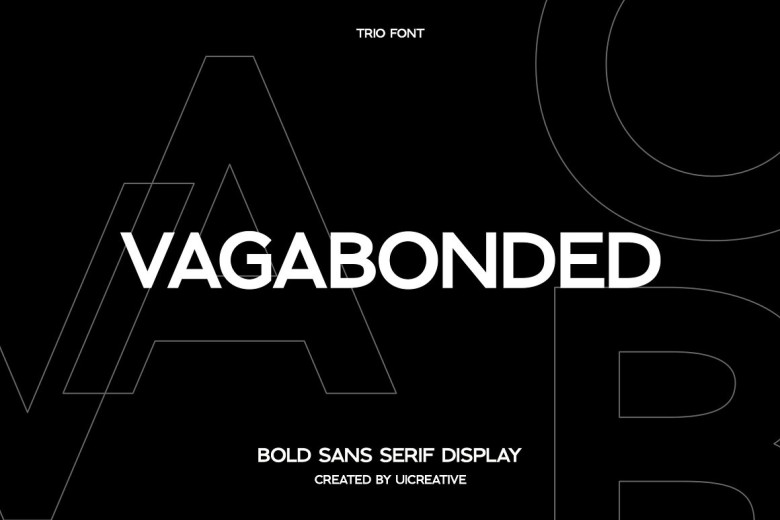
Vagabonded Font
Vagabonded is an elegant and contemporary sans-serif typeface featuring characters that stand out against any background, making it suitable for use on projects ranging from magazine covers and book covers, wedding invitations and typography quotes to clothing design and branding for fashion-related branding and editorial design – as well as both masculine and feminine elements in branding and editorial design projects.
Vagabonded Sans Serif Font